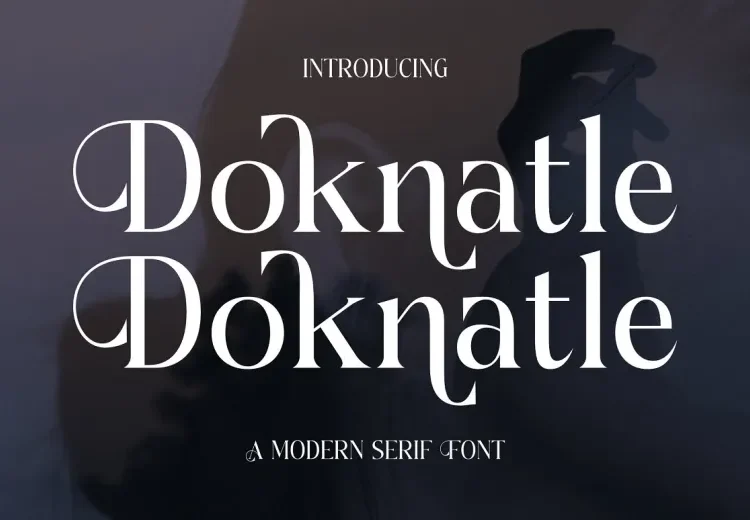
Doknatle Font
Doknatle is an elegant serif typeface that masterfully combines modern and classic design elements. Its timeless appeal makes it a perfect choice for a wide array of creative projects, from stylish logos and fashion branding to movie titles, book covers, magazine layouts, and inspiring quotes. With its refined and balanced aesthetic, Doknatle is designed to leave a lasting impression in any application.
Whether you’re crafting a bold statement for a headline or adding a touch of sophistication to your branding, Doknatle’s versatility and charm shine through. Its clean lines and intricate details ensure it complements both minimalist and luxurious design themes, making it an essential addition to any designer’s toolkit.